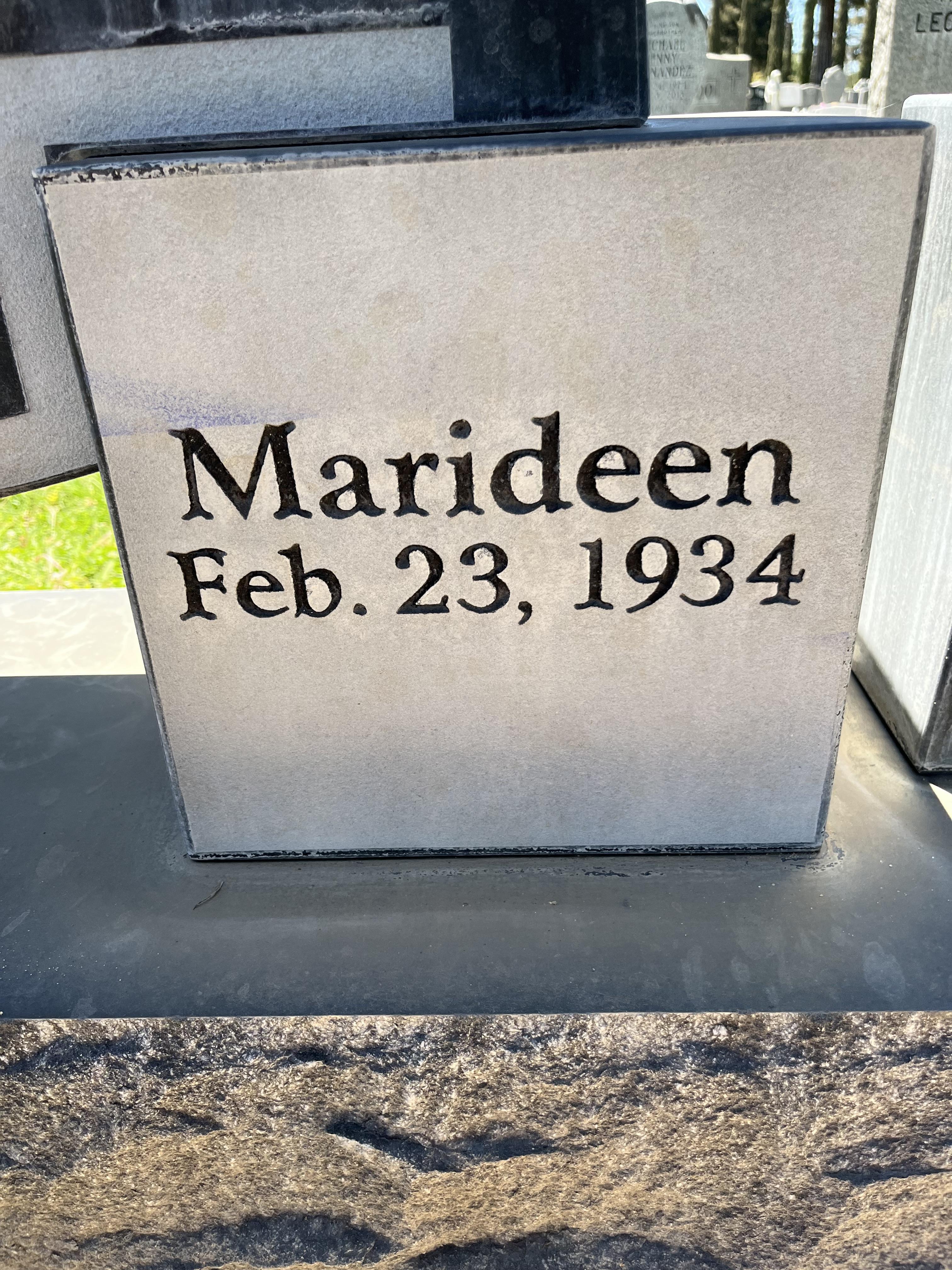
Need Help on font for matching dates.
Hi Chris, I believe this is a font named Arrus. However, because it appears to have been painted by hand with a brush, the details have been a bit exaggerated.